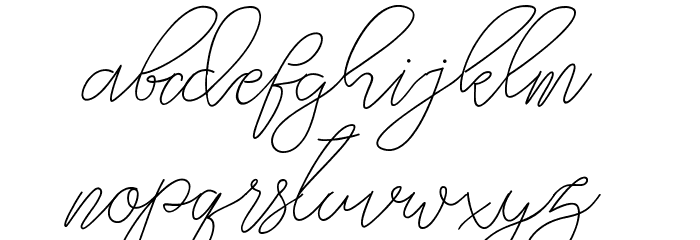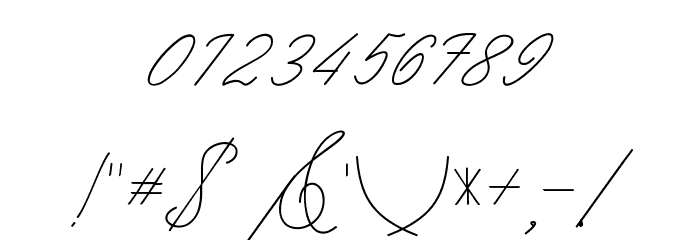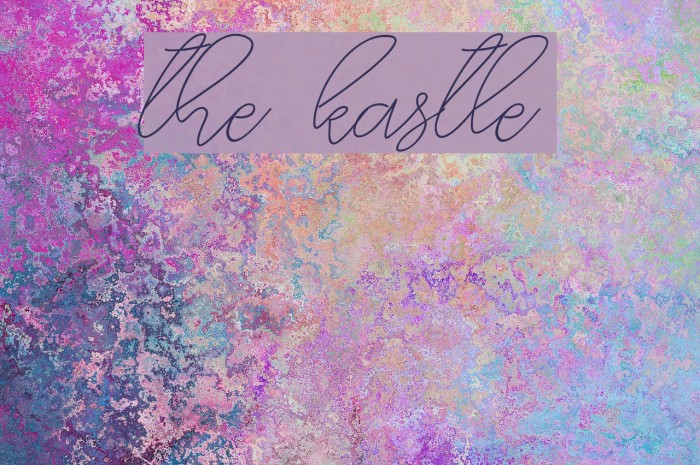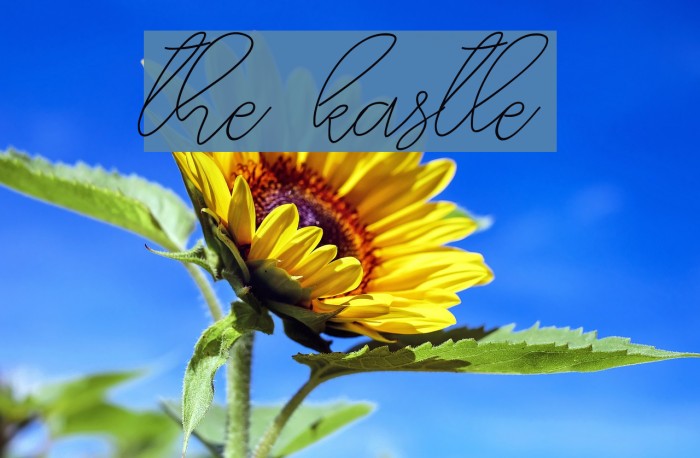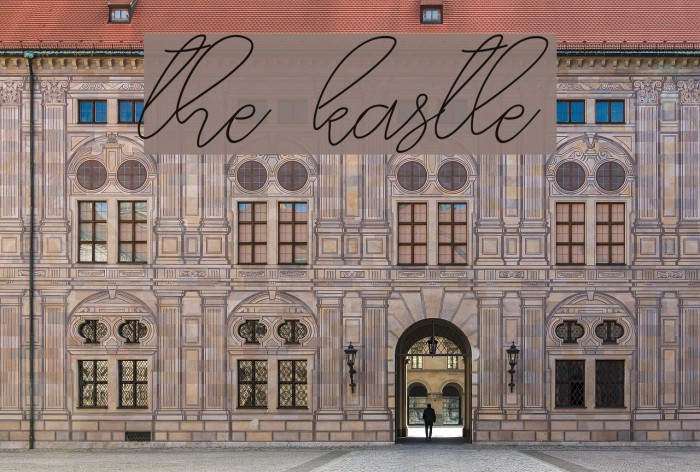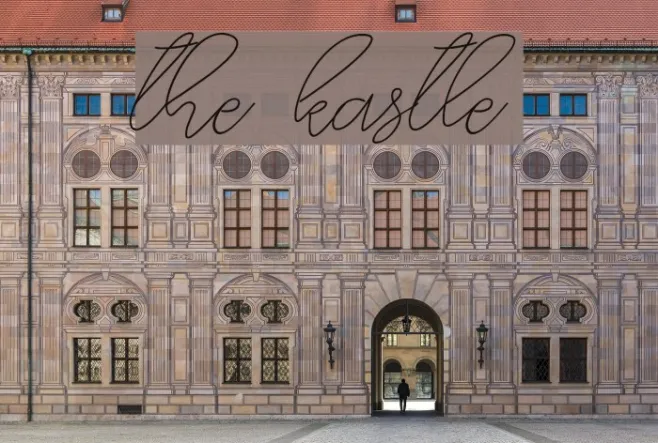
the kastle Font
This elegant script font features flowing, interconnected letters with a graceful and sophisticated appearance. The uppercase letters are ornate, with delicate loops and swirls that add a touch of refinement. The lowercase letters maintain a consistent style, offering a smooth and fluid transition between characters. The numerals are designed to match the overall aesthetic, providing a cohesive look. Special characters are thoughtfully crafted, enhancing the font's versatility. This font exudes a sense of elegance and charm, making it ideal for formal invitations, branding, and decorative purposes.
A graceful script font with flowing, interconnected letters and ornate details.
- Proposed Projects: Ideal for wedding invitations, elegant branding, decorative signage, and luxury product packaging.
- Category: Script
- Character Spacing: Tight
- Overall Style: Elegant
- Use Case: Invitations, Branding, Decorative